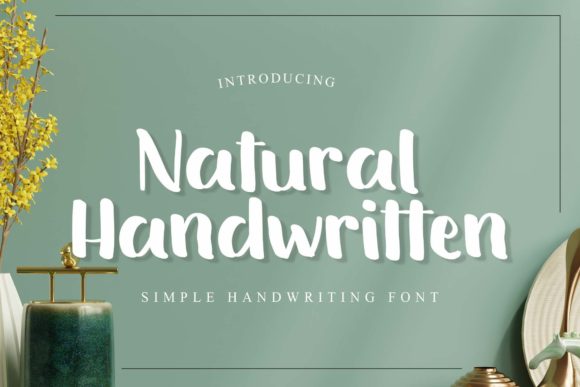
Discover the captivating charm of Natural Handwritten Font, a remarkable creation from Doehantz Studio. This contemporary script font exudes an allure that is both distinct and effortlessly stylish.
Indulge in the beauty of its meticulously crafted curves, each stroke infused with an air of confidence and grace. Designed with readability in mind, Natural Handwritten ensures that your messages shine, whether in digital signage, fashion branding, or elegant editorial designs.
Embrace the power of personalization with Natural Handwritten. Its versatility knows no bounds, allowing you to effortlessly add a touch of sophistication to your creative endeavors. Watch as your projects transform, imbued with a dash of boldness and flair.
Say goodbye to monotonous fonts and embrace the captivating allure of Natural Handwritten. Experience the joy of crafting designs that captivate and inspire, leaving a lasting impression on all who encounter them.